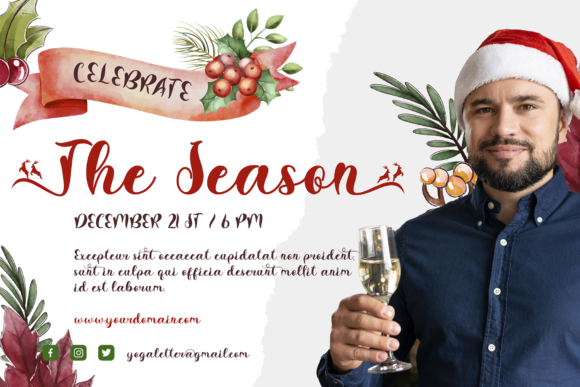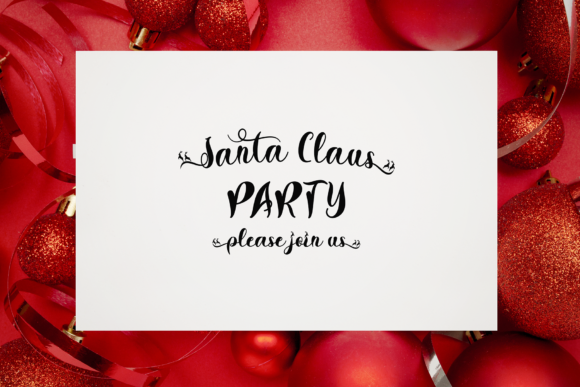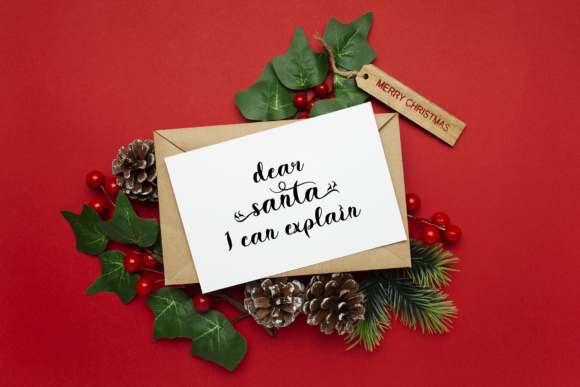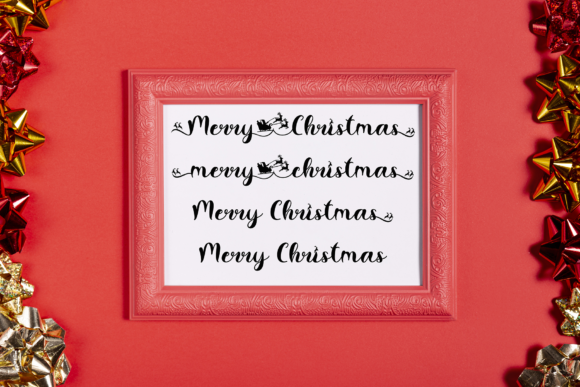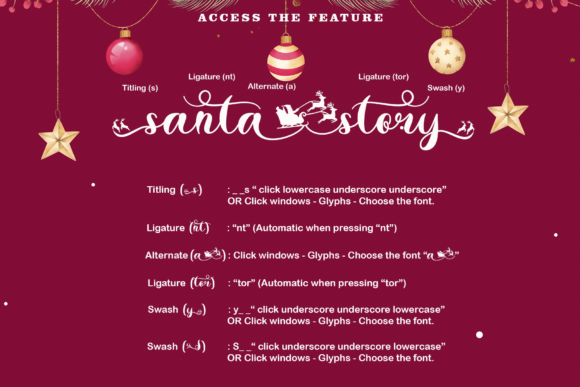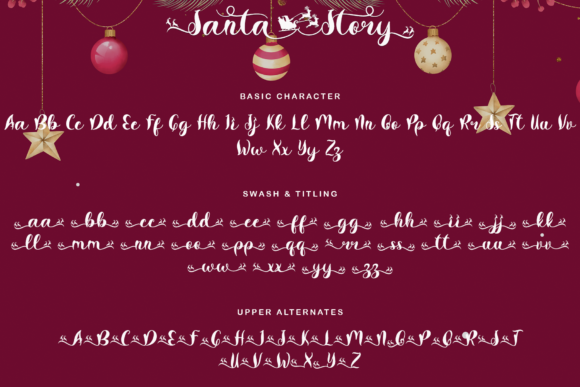
About Santa Story Font
Santa Story is a beautiful lettered and graceful script font. It will add a luxury spark to any design project that you wish to create! This font is PUA encoded which means you can access all of the amazing glyphs and ligatures with ease!